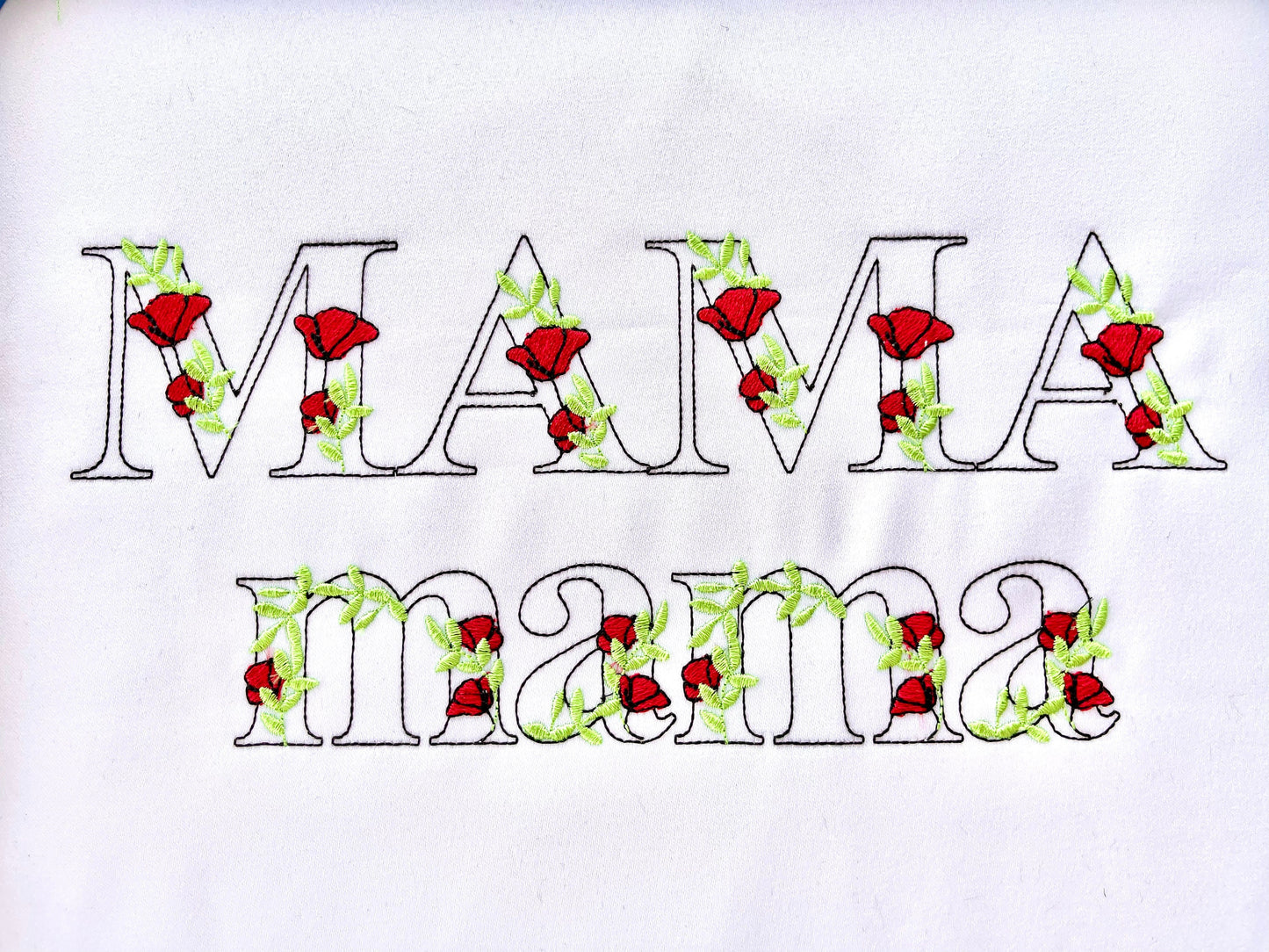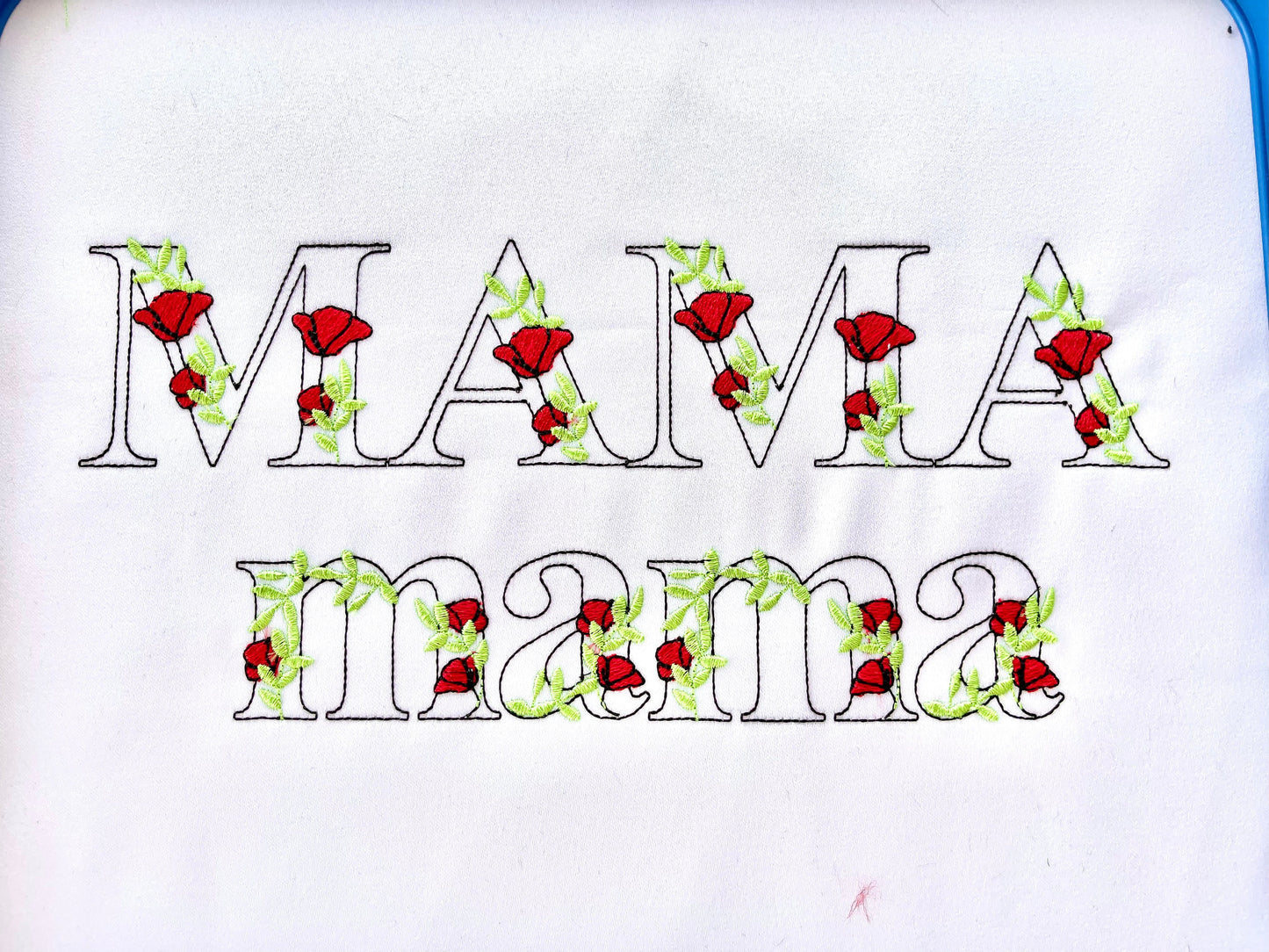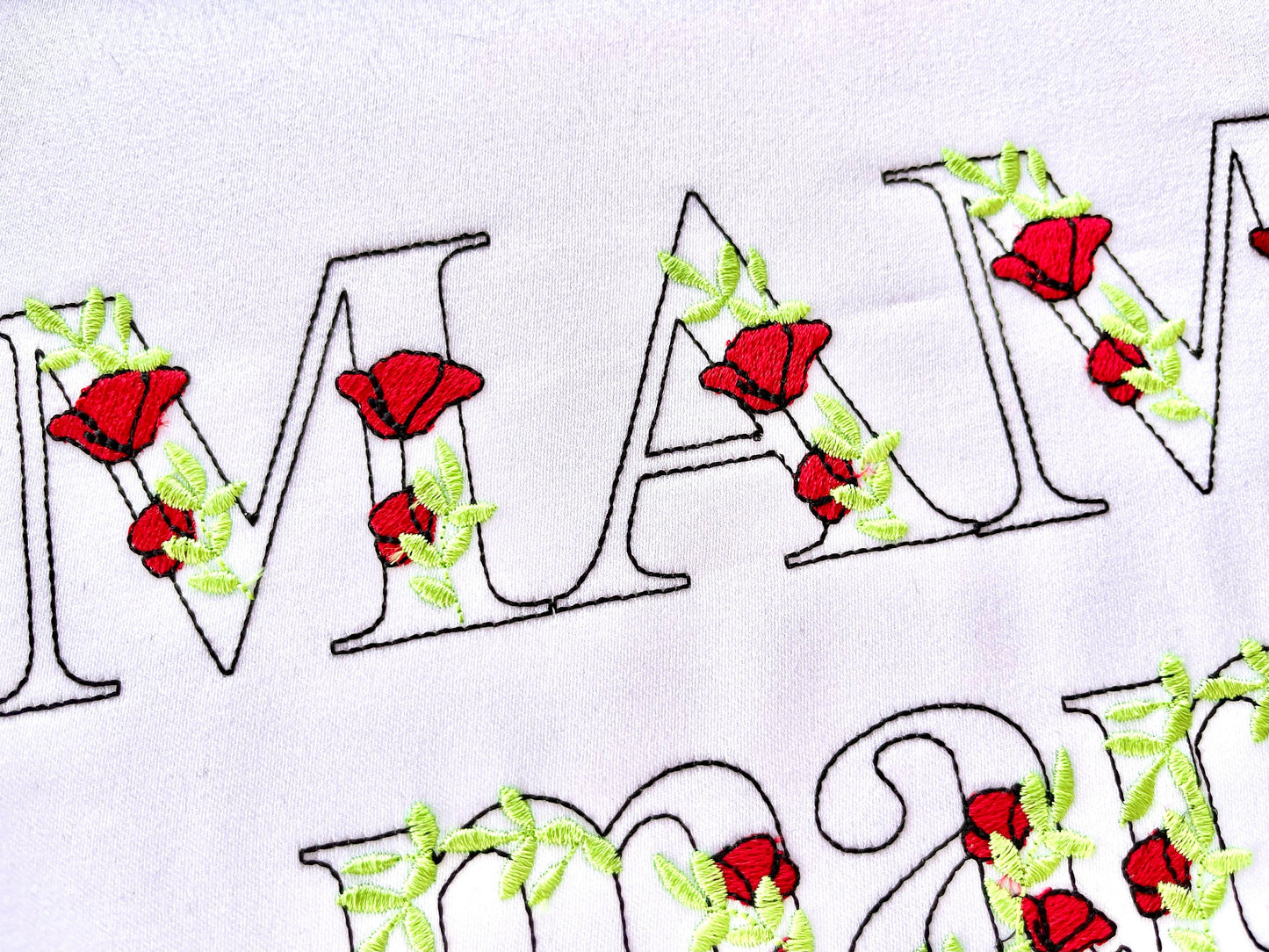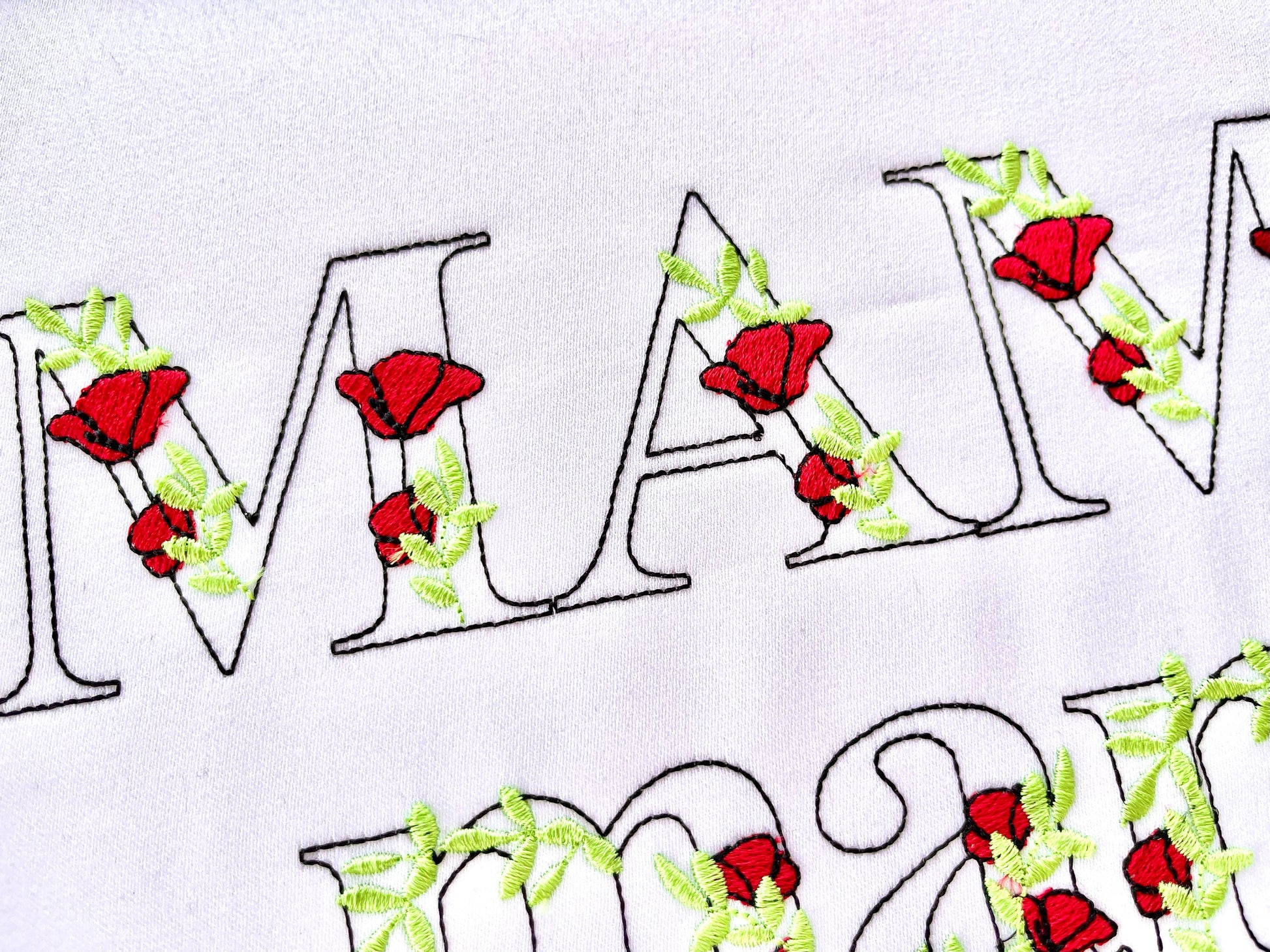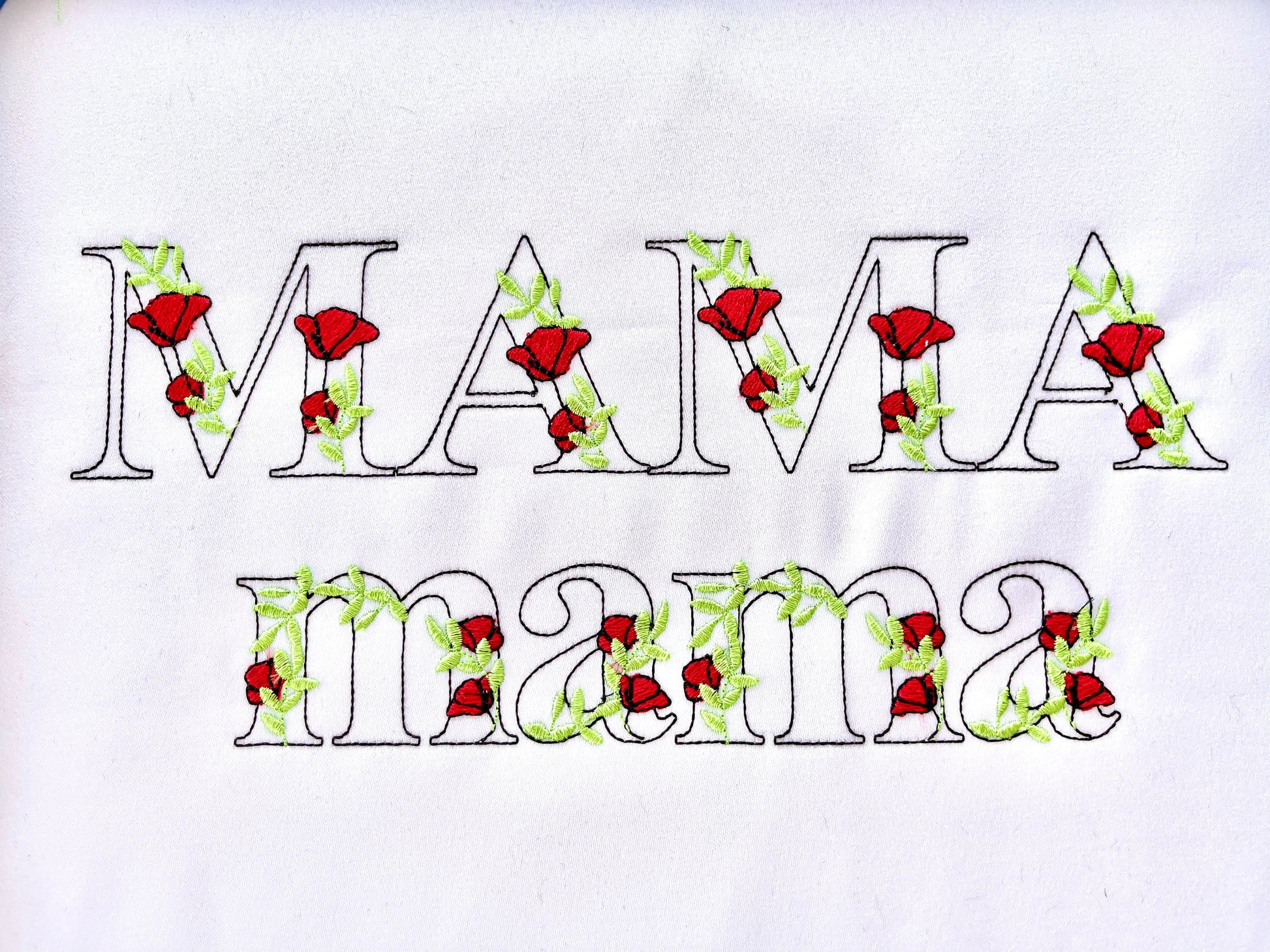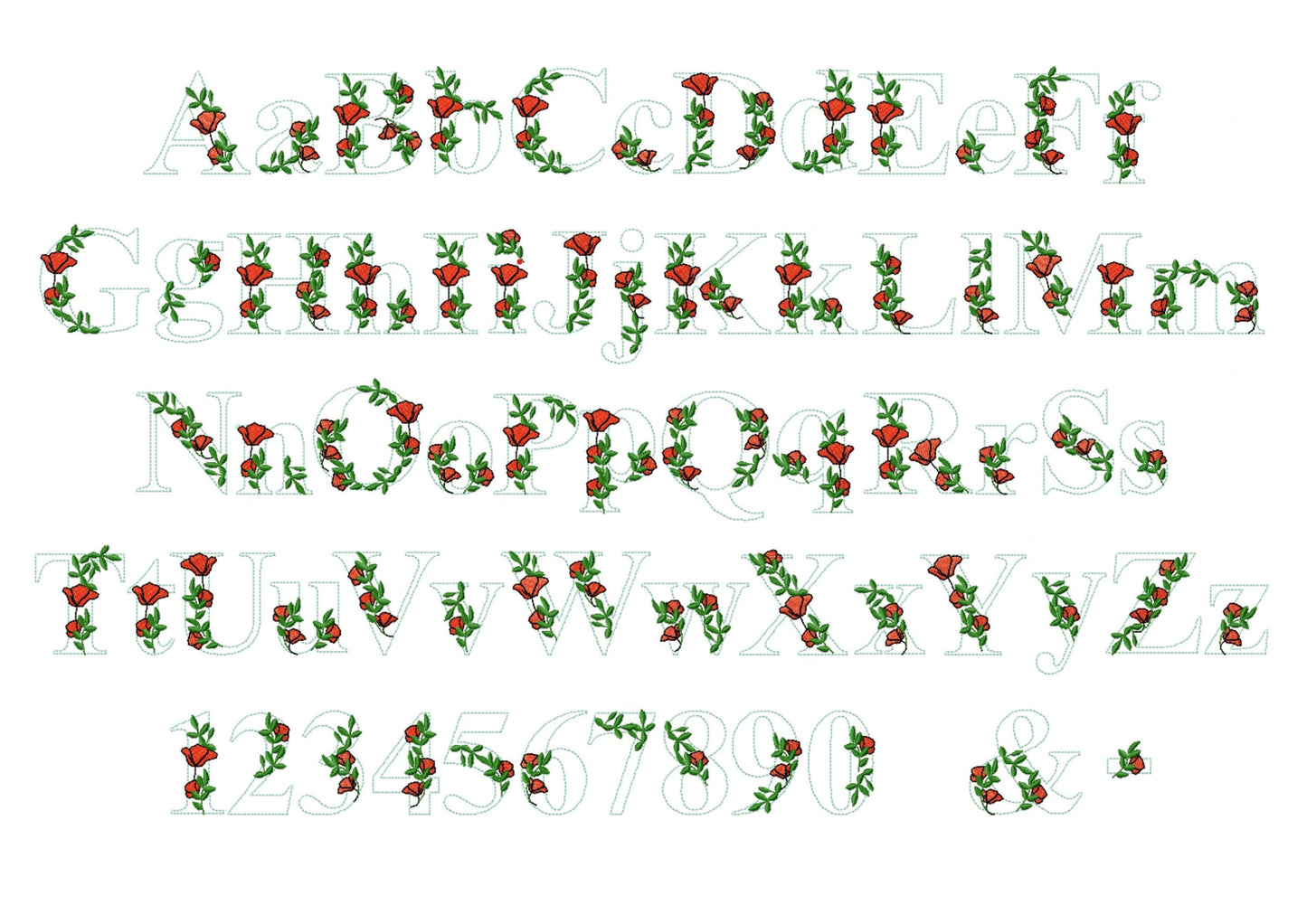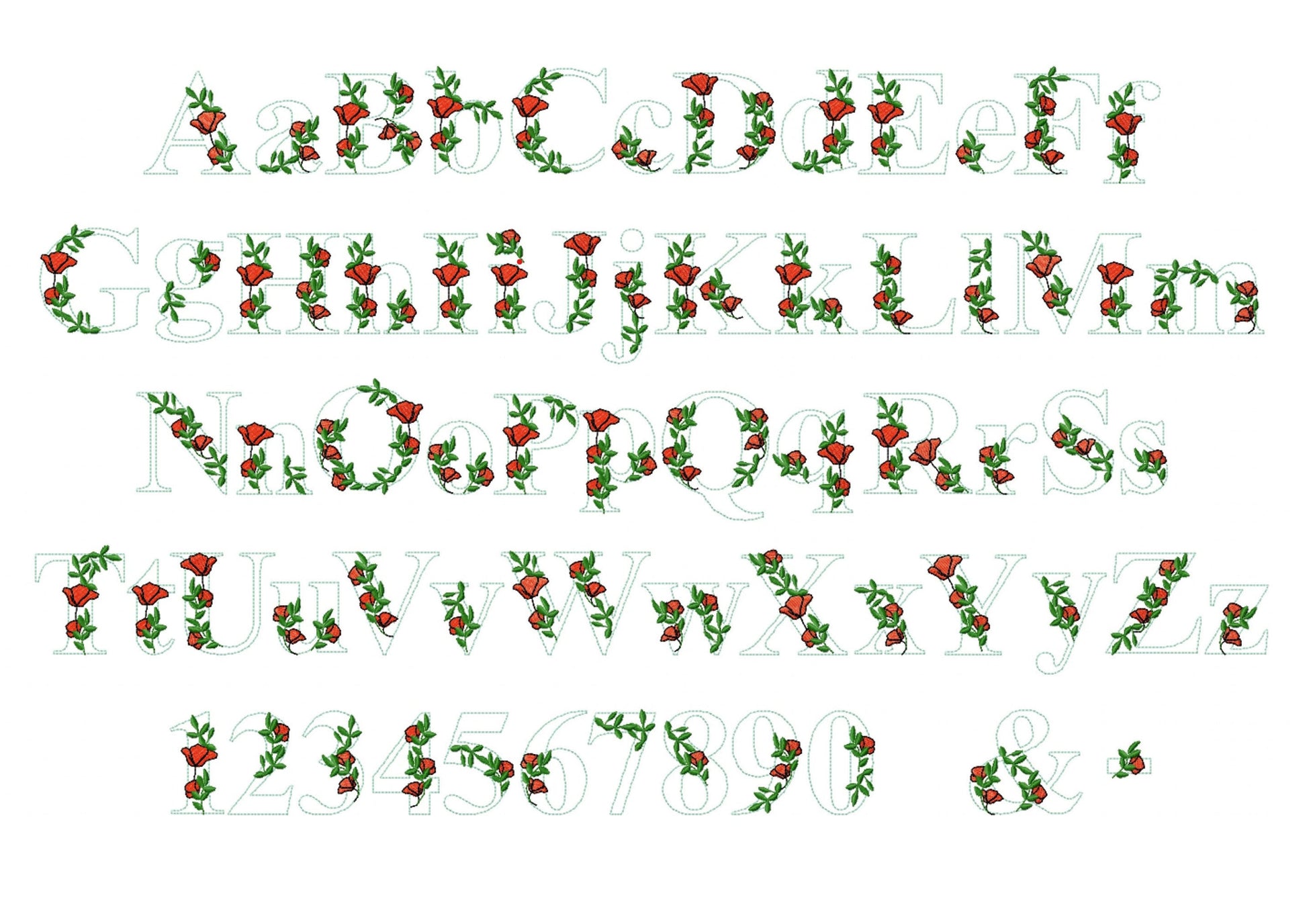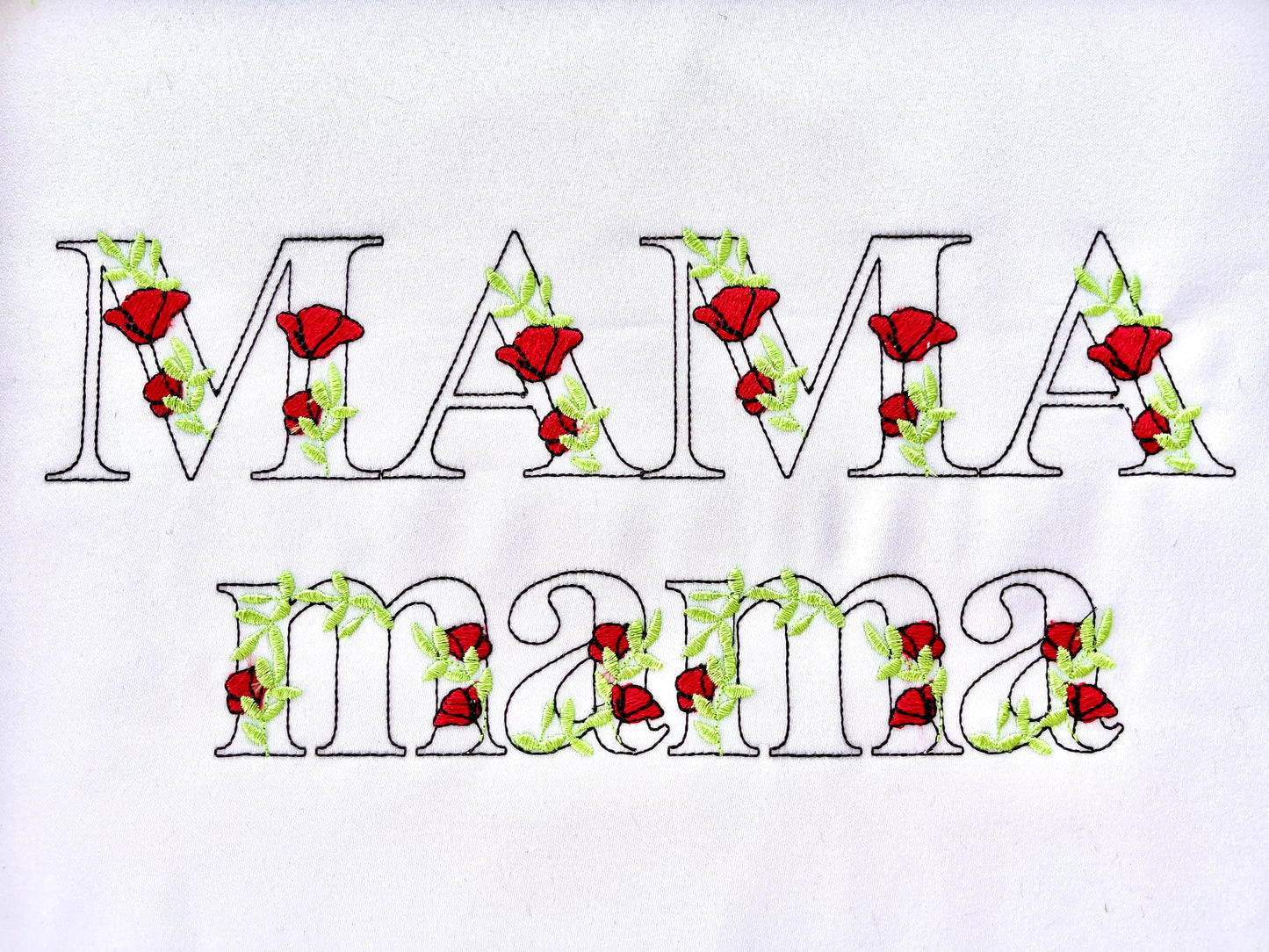
Light Poppy Red Rose Floral Font
Or click to open the linkA light floral font with outlined letters and red poppy flowers. Pretty for initials, monograms, girls' clothes and summer gifts.
The letters come in five sizes: 1.4, 1.8, 2.2, 2.6 and 3.4 inches. A light stitch: each letter is an outline decorated with poppies, and the fabric shows through. Includes uppercase and lowercase letters, numbers 0 to 9 and the signs & - . ?
- Light poppy floral outline font
- Uppercase and lowercase letters, numbers 0 to 9, & - . ?
- 5 sizes, 1.4 to 3.4 in